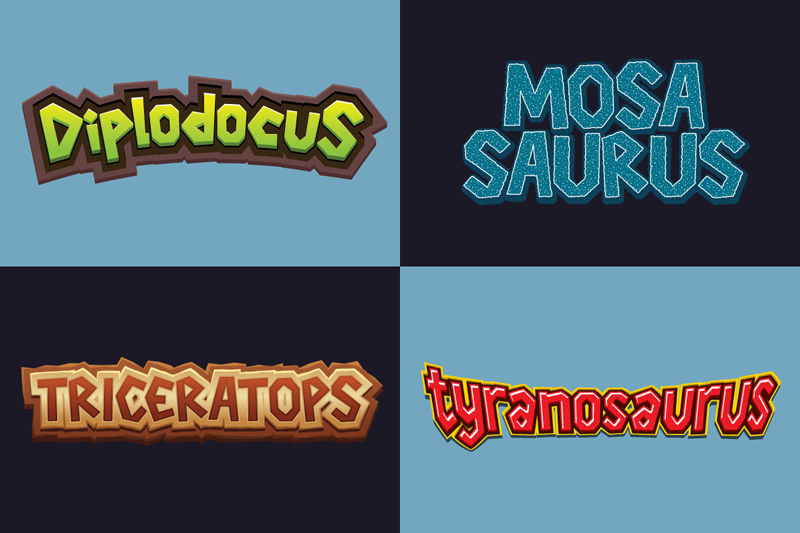
Preview and download Dinotype Font. Created by Mahmud Fajar Rosyadi in Fancy Cartoon styles with Demo license.
Dinotype Font is a strong font with corner crisp style. Combination of thick, stone aged, edgy but still relevant for modern use. You can buy full license here: https://creativemarket.com/mikailain/4929754-Dinotype Or contact me at firstlastman@gmail.com Dinotype Regular. Copyright � 2020 by HoPoYa Studio�. All rights reserved. |